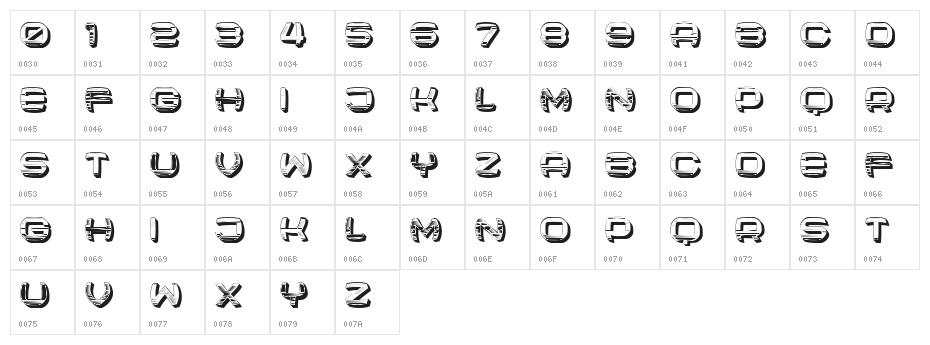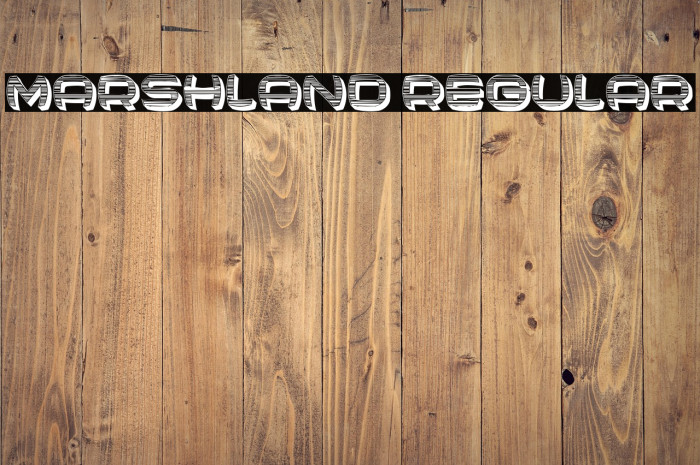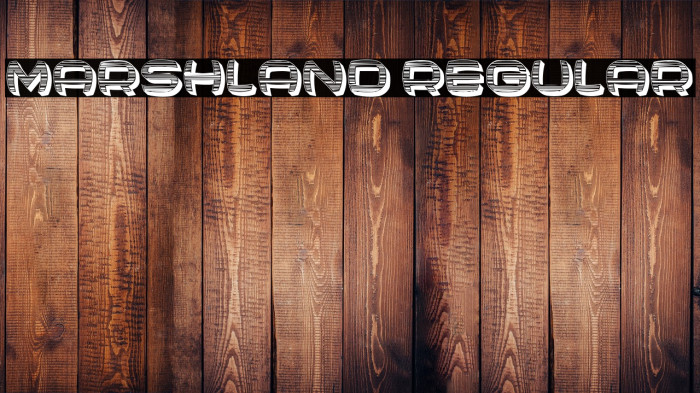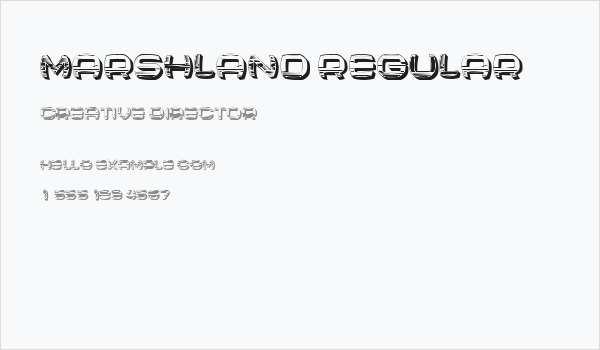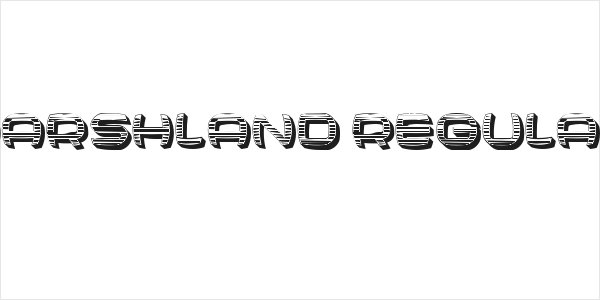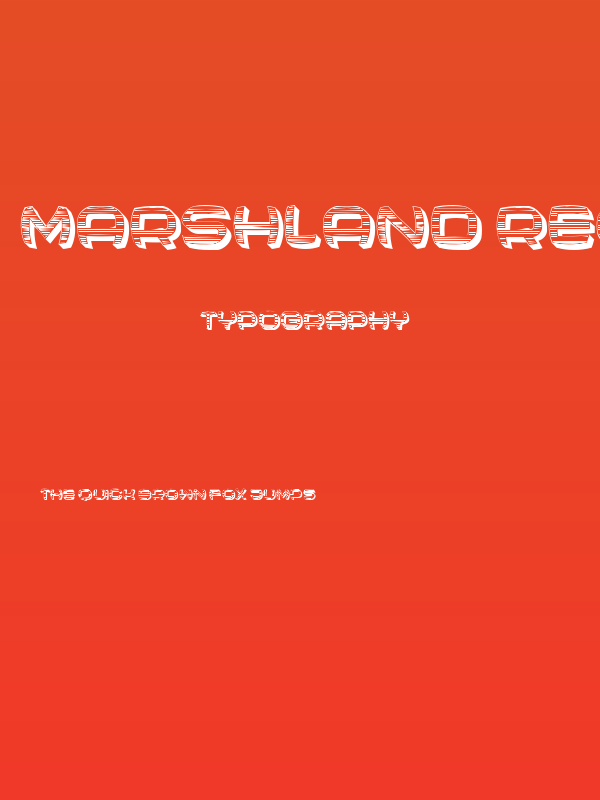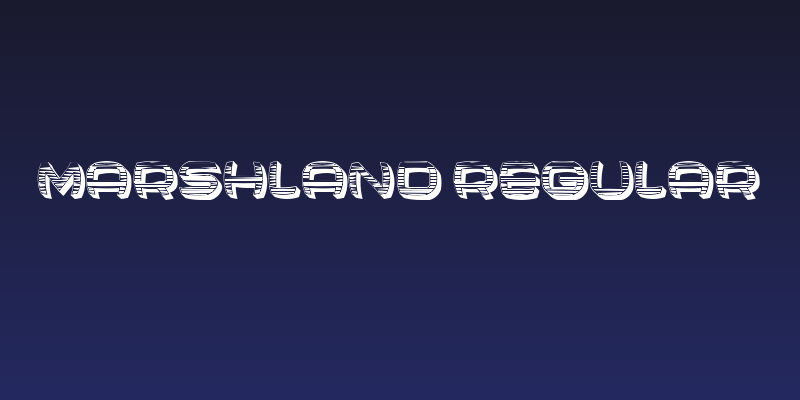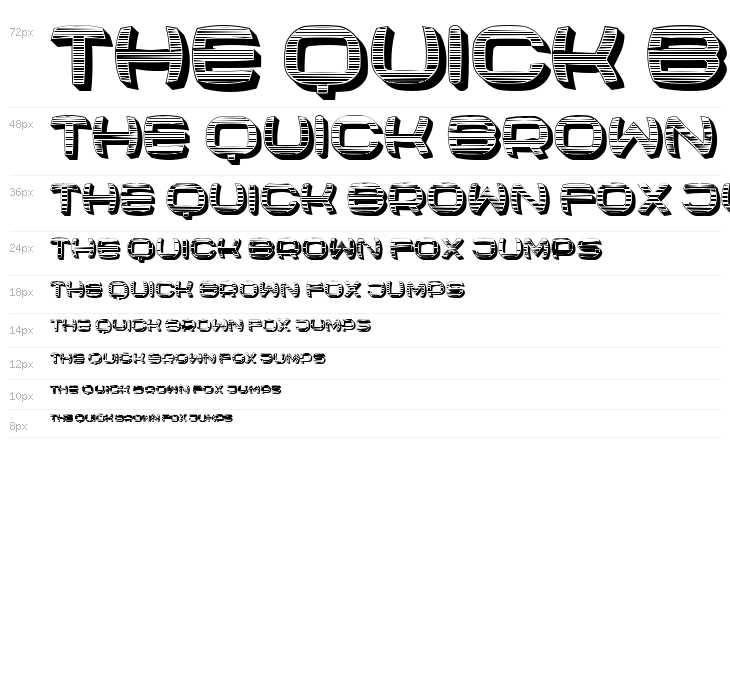
Marshland Regular Font
Marshland Regular Description
This font features a bold, decorative style with a unique striped pattern running through each character. The letters are uppercase and have a futuristic, industrial feel, making them stand out with their intricate detailing. The design incorporates a sense of movement and depth, achieved through the use of horizontal lines that create a three-dimensional effect. The characters are evenly spaced, providing a balanced and cohesive look. This font is ideal for projects that require a strong visual impact and a modern aesthetic.
| Proposed Projects | Ideal for branding, posters, headlines, and any design needing a striking, modern touch. |